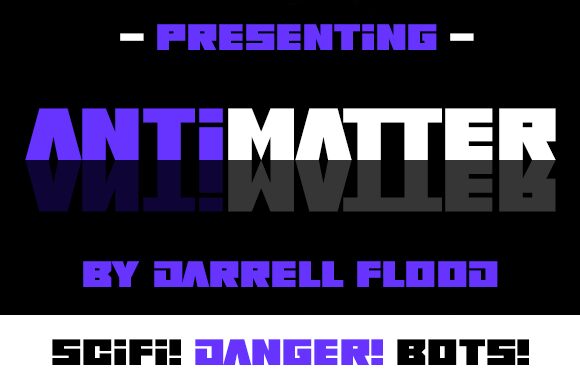
Antimatter Italic
Antimatter Italic is a cutting-edge display font that exudes a futuristic vibe. Designed by Darrell Flood, this extra-bold and expanded font is perfect for projects that require a bold statement. From movie posters to tech company logos, Antimatter Italic will add a touch of edgy sophistication to any design. Its unique italicized style makes it stand out from other display fonts, while its expanded width ensures maximum impact. Whether you're creating a high-tech video game title or designing modern packaging for your product, Antimatter Italic is the perfect choice for making your brand stand out from the crowd.